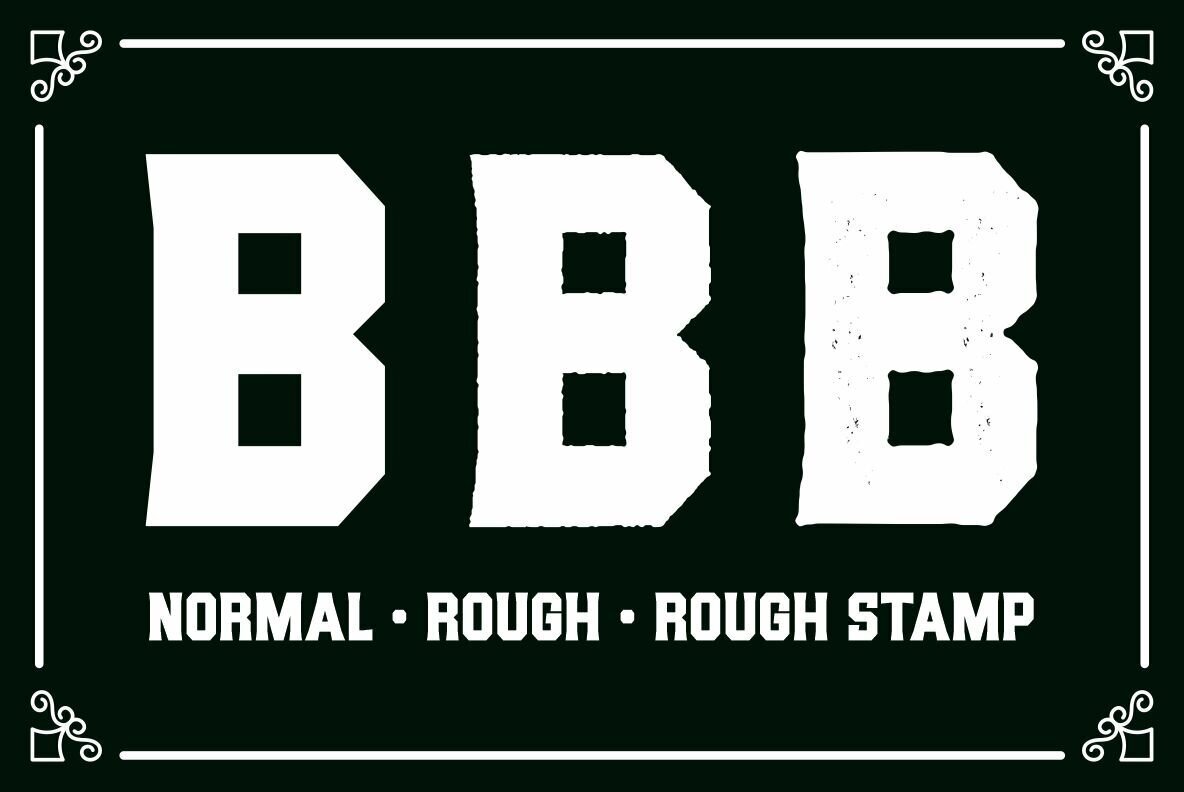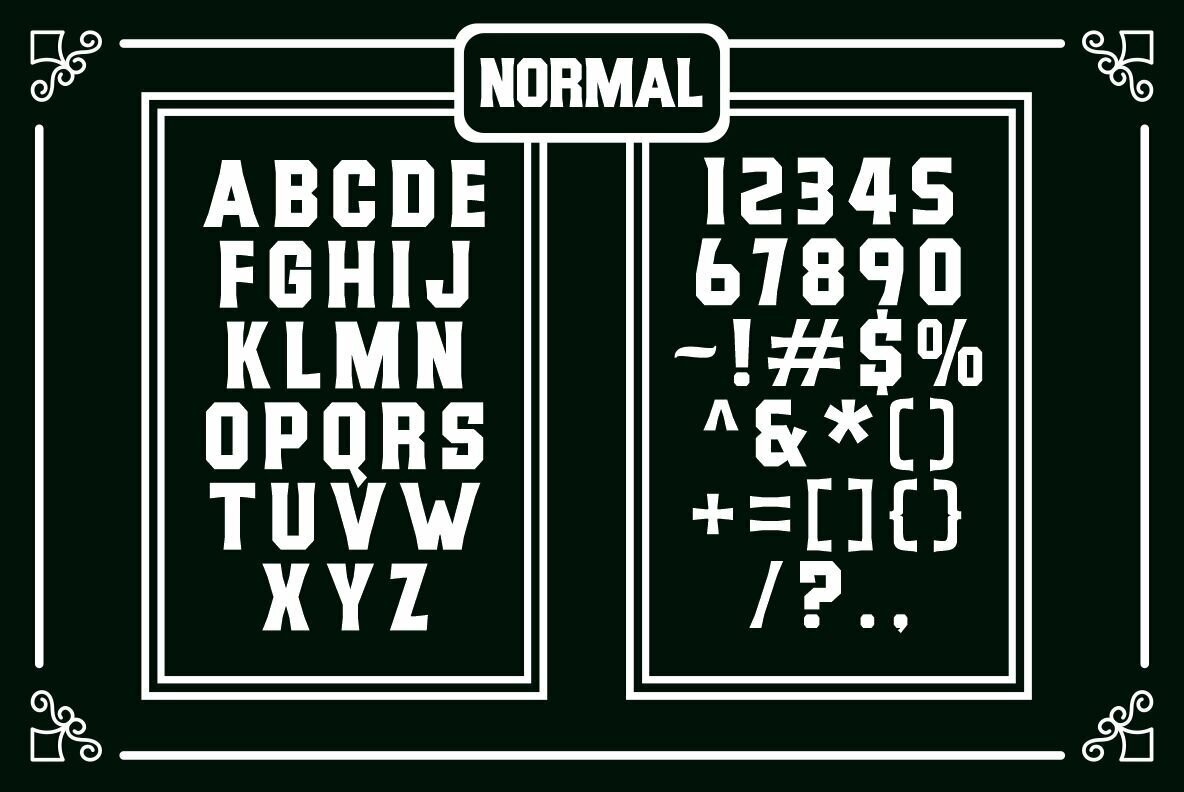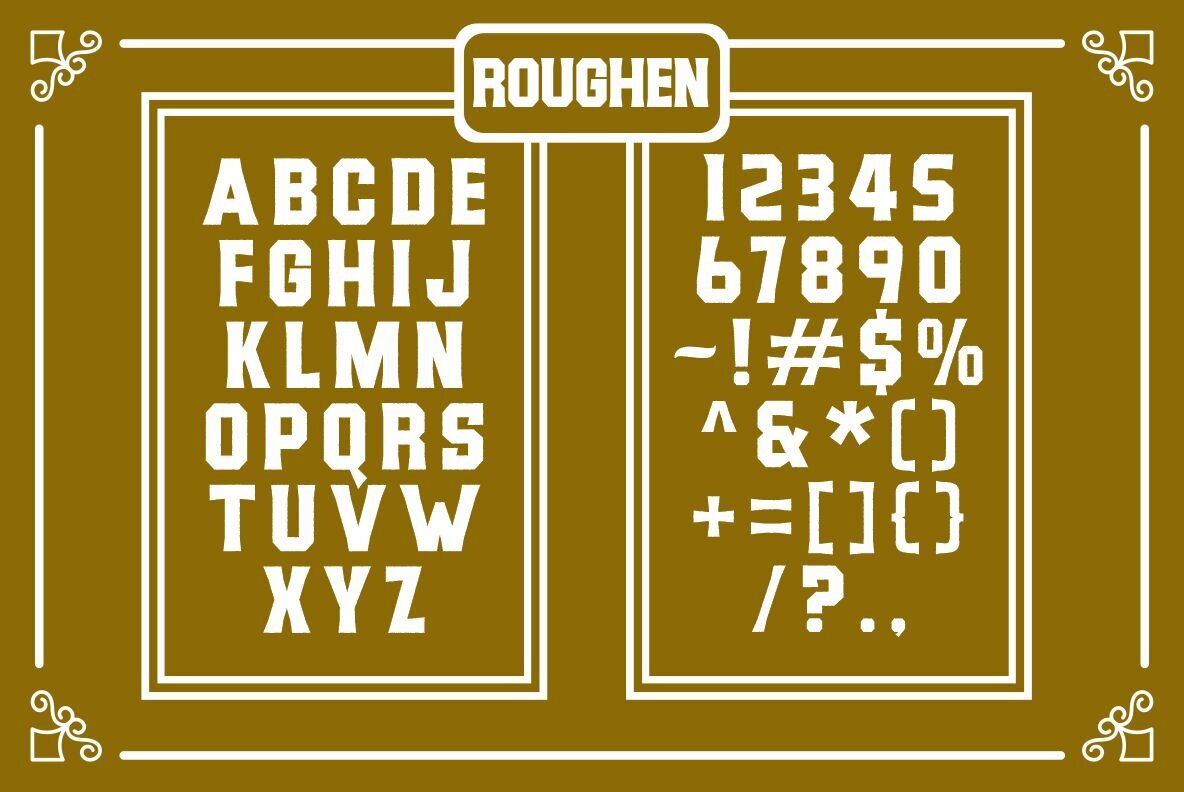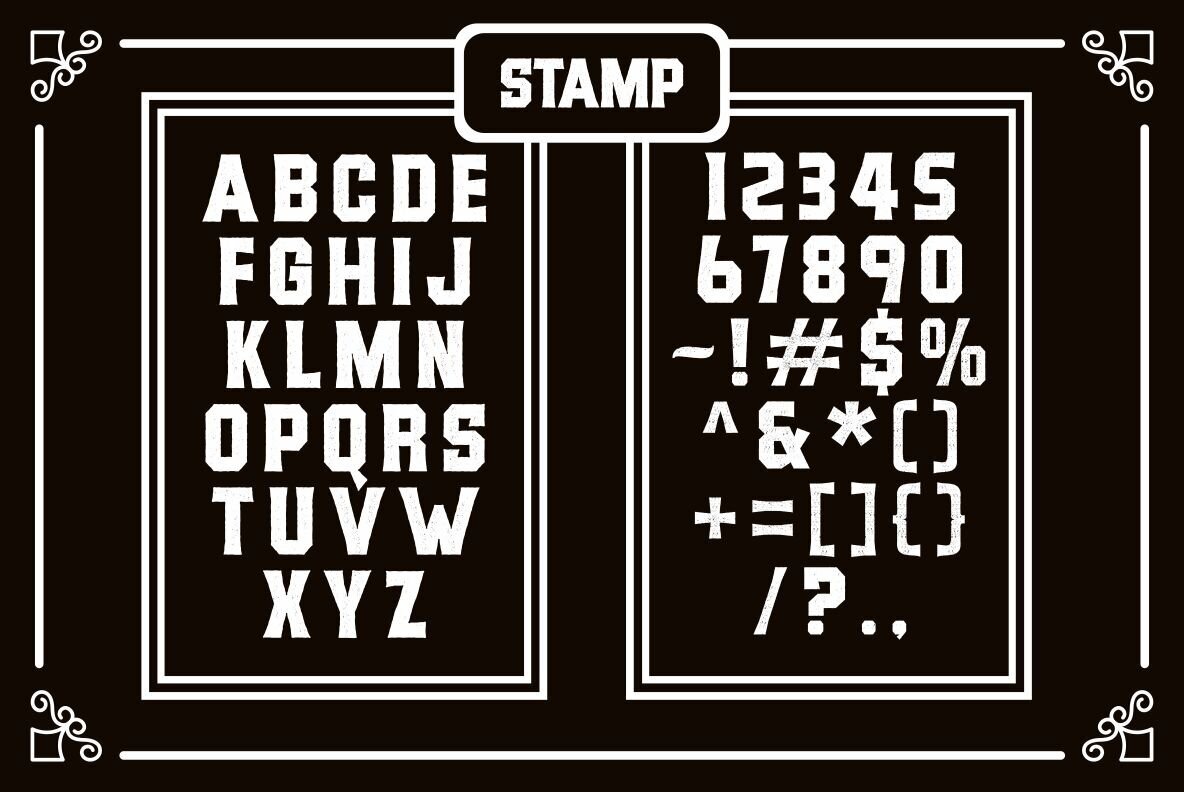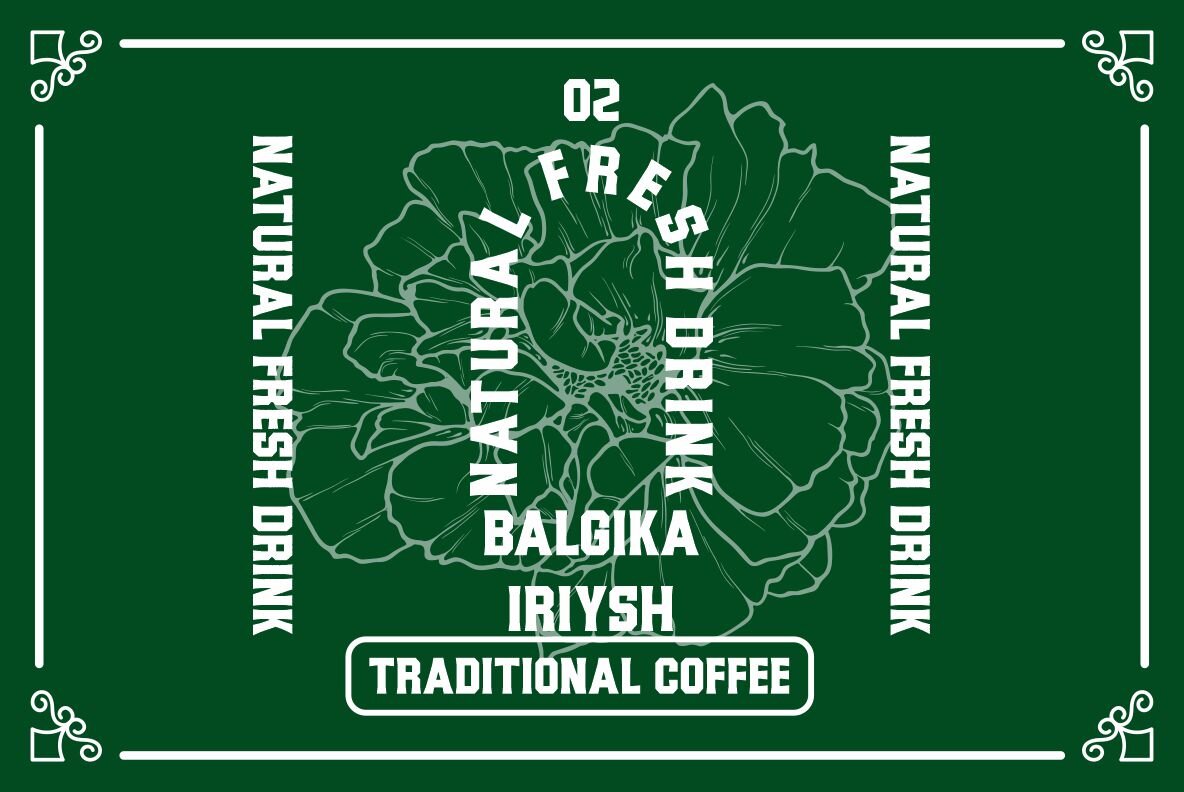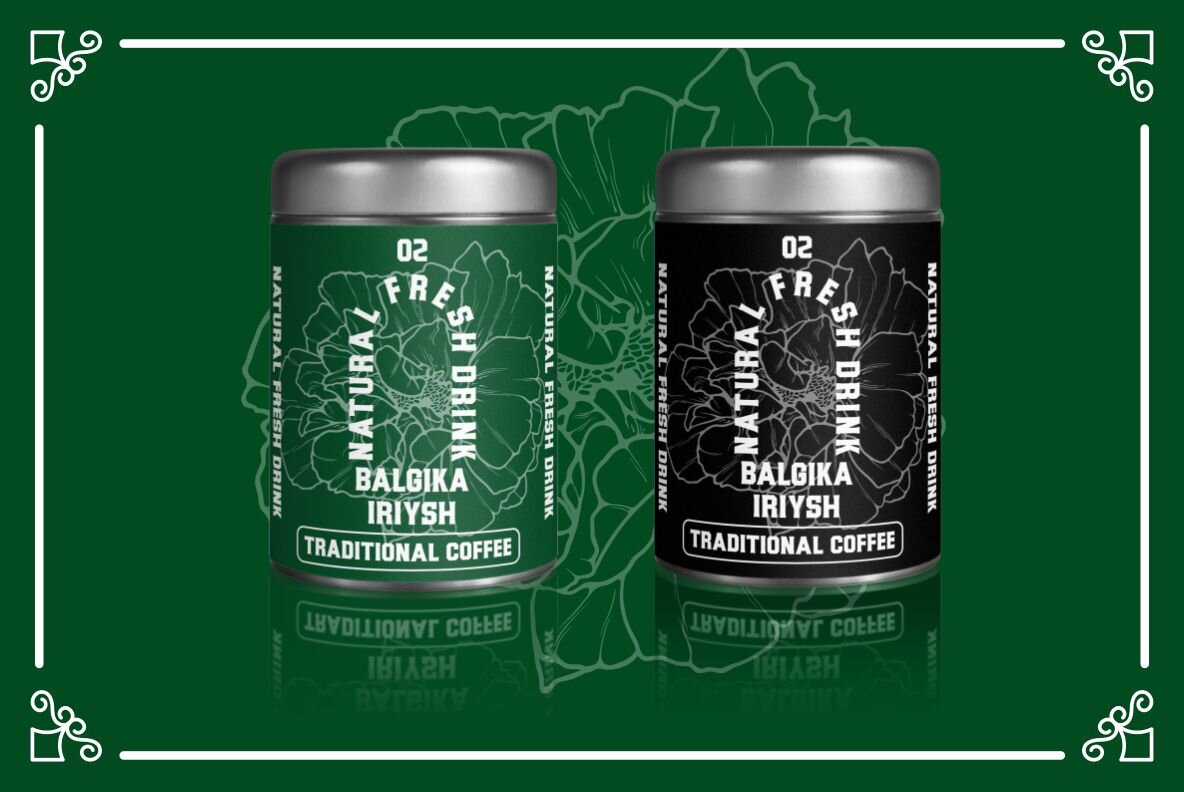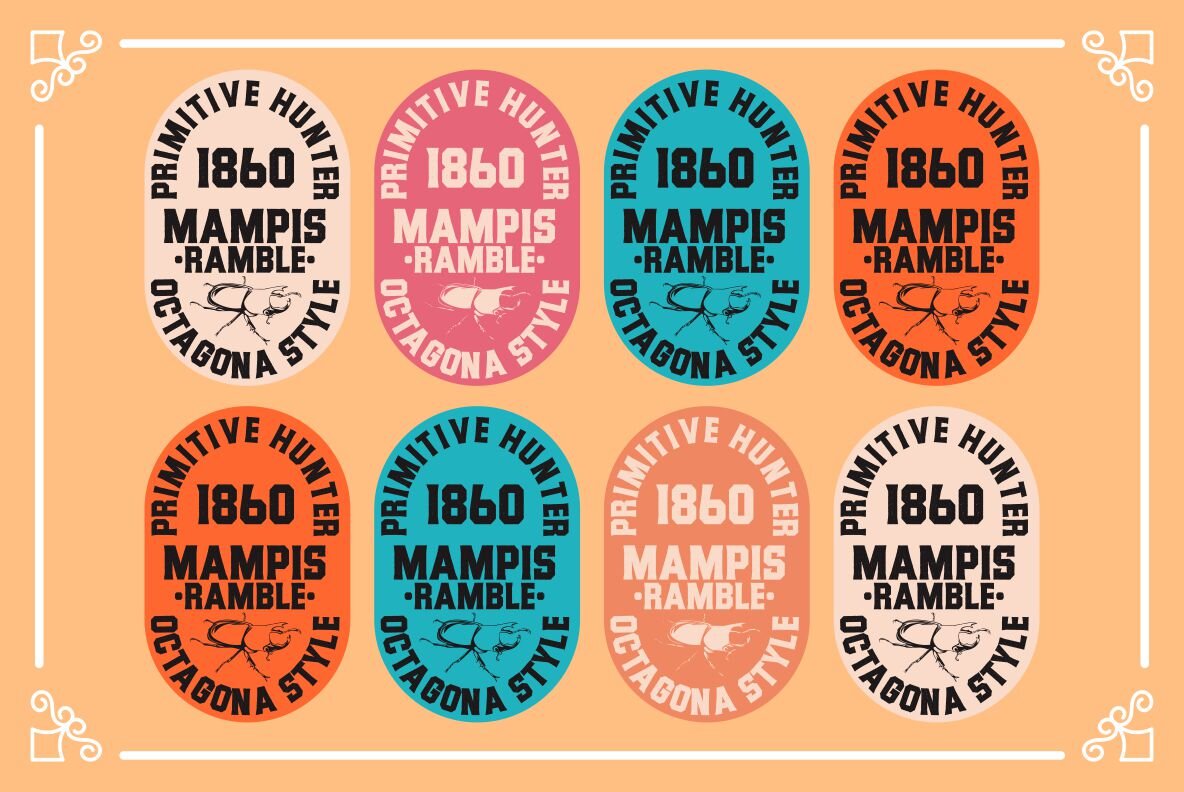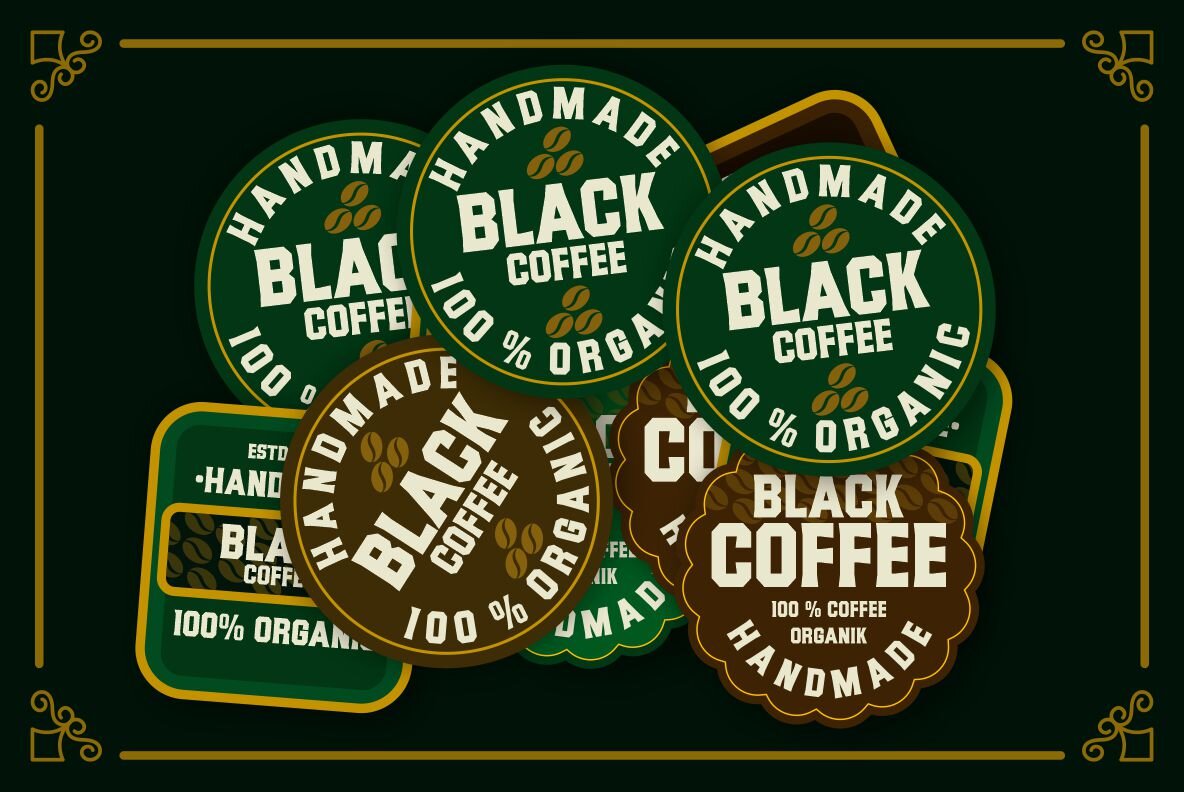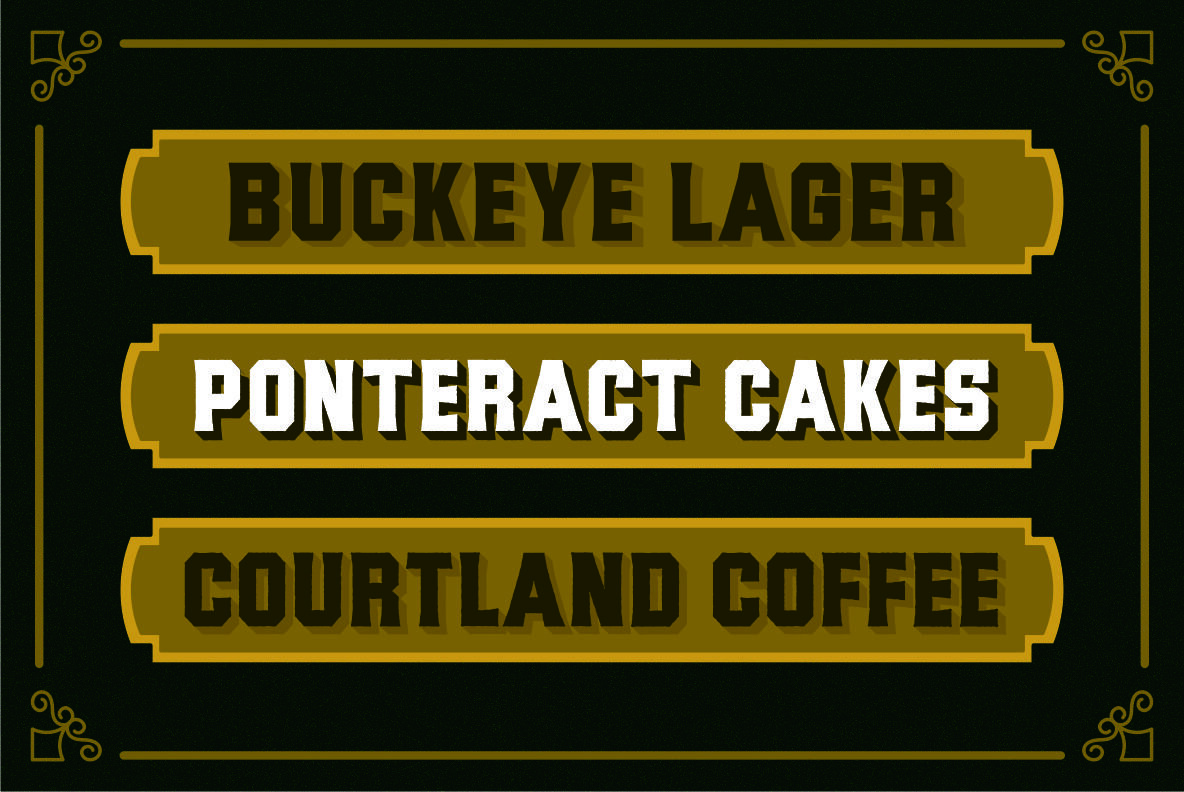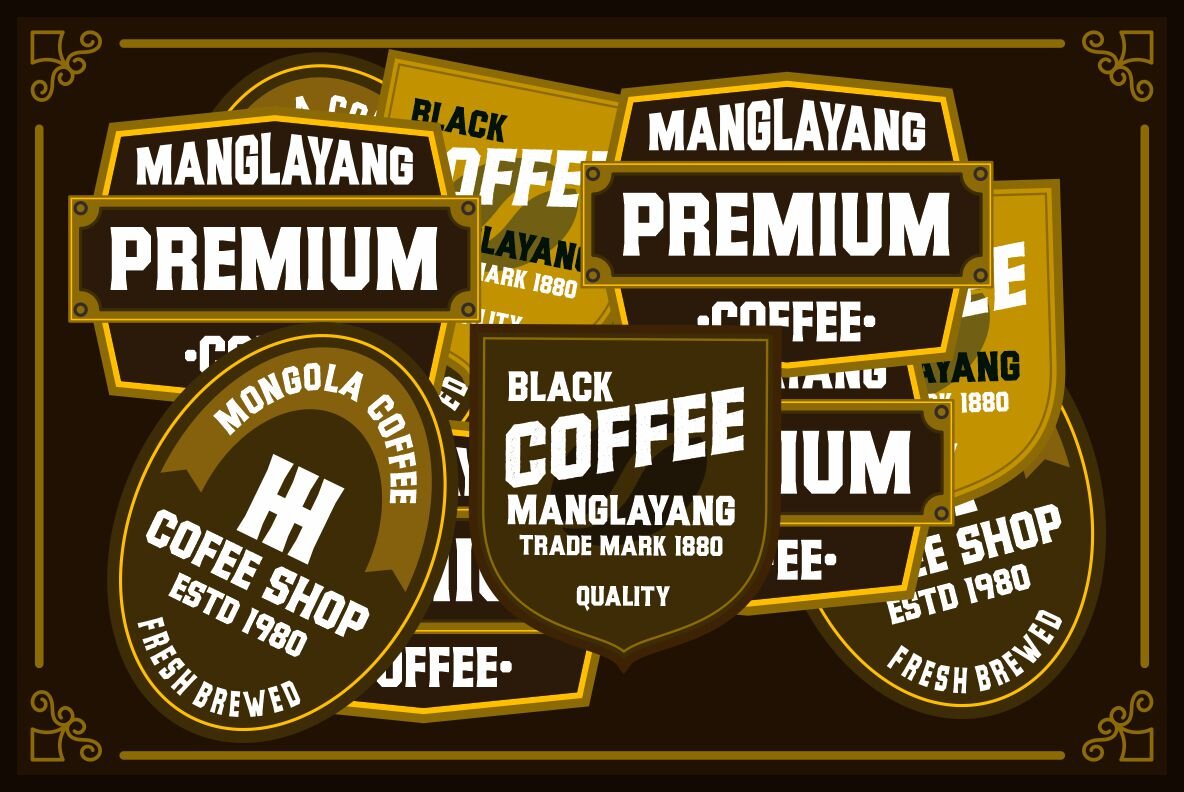
Balgika: A Vintage Serif Inspired by Western Wild
Balgika stands as a testament to the fusion of Western culture and modern design, offering a dynamic collection that embodies the vintage with a strong touch. This family of serifs includes styles of normal, rough, and rough stamping, making Balgika perfect for a diverse range of creative applications. Whether you're designing logos, signage, or apparel, this font family is ideal for tattoo shops, barbershops, and brands with a vintage flair.
• All caps design for a bold and uniform appearance.
• Available in three distinct styles: Normal, Rough, and Rough Stamp.